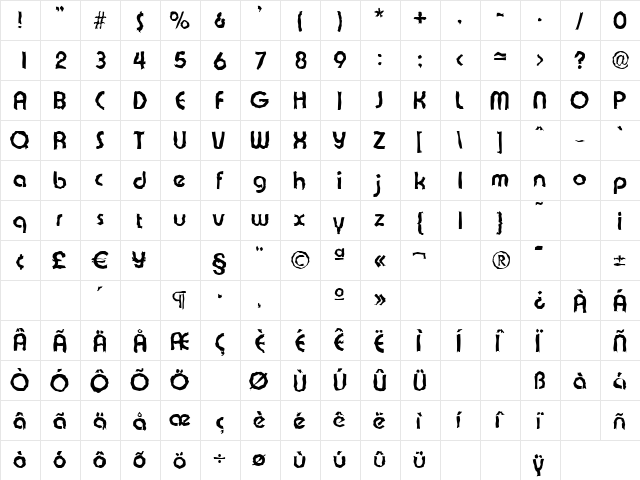
BrianBeckerRandom Bold
Design Context for BrianBeckerRandom Typeface
BrianBeckerRandom is a composed and adaptable typeface that performs quietly and consistently across a wide range of design contexts. The heavy weight commands attention and anchors typographic hierarchies.